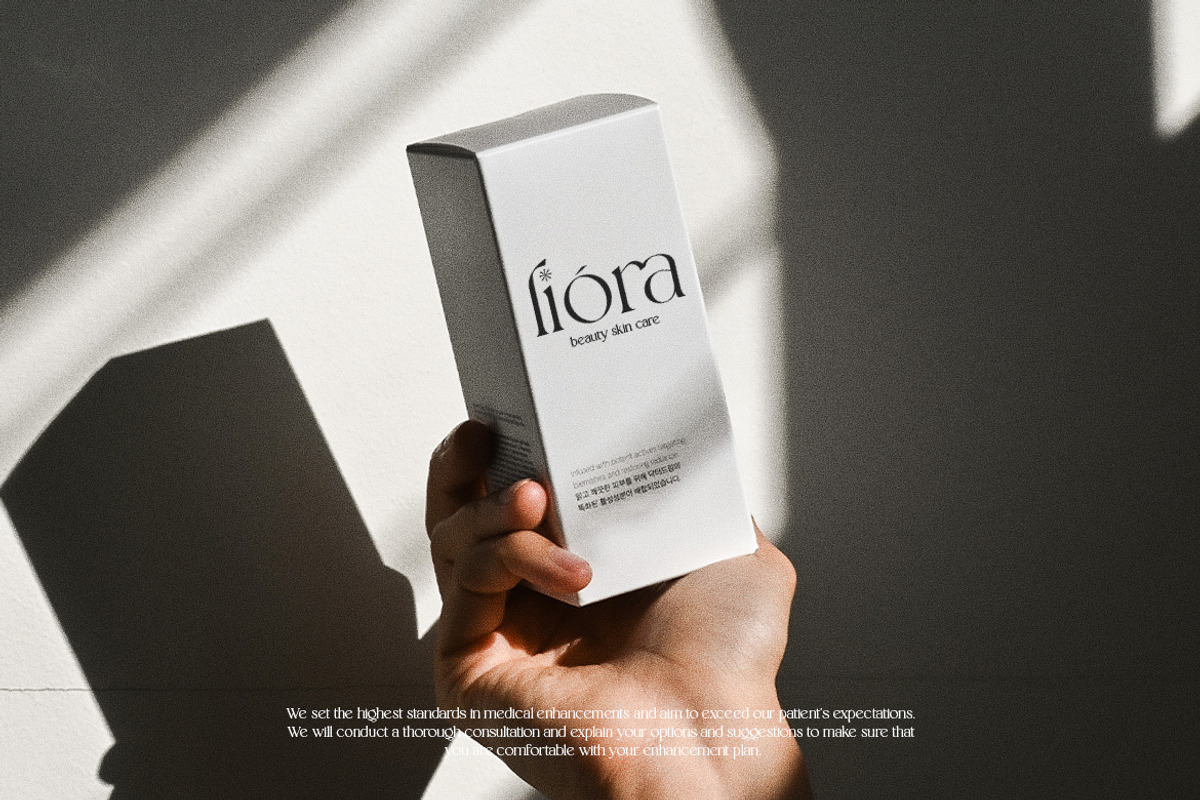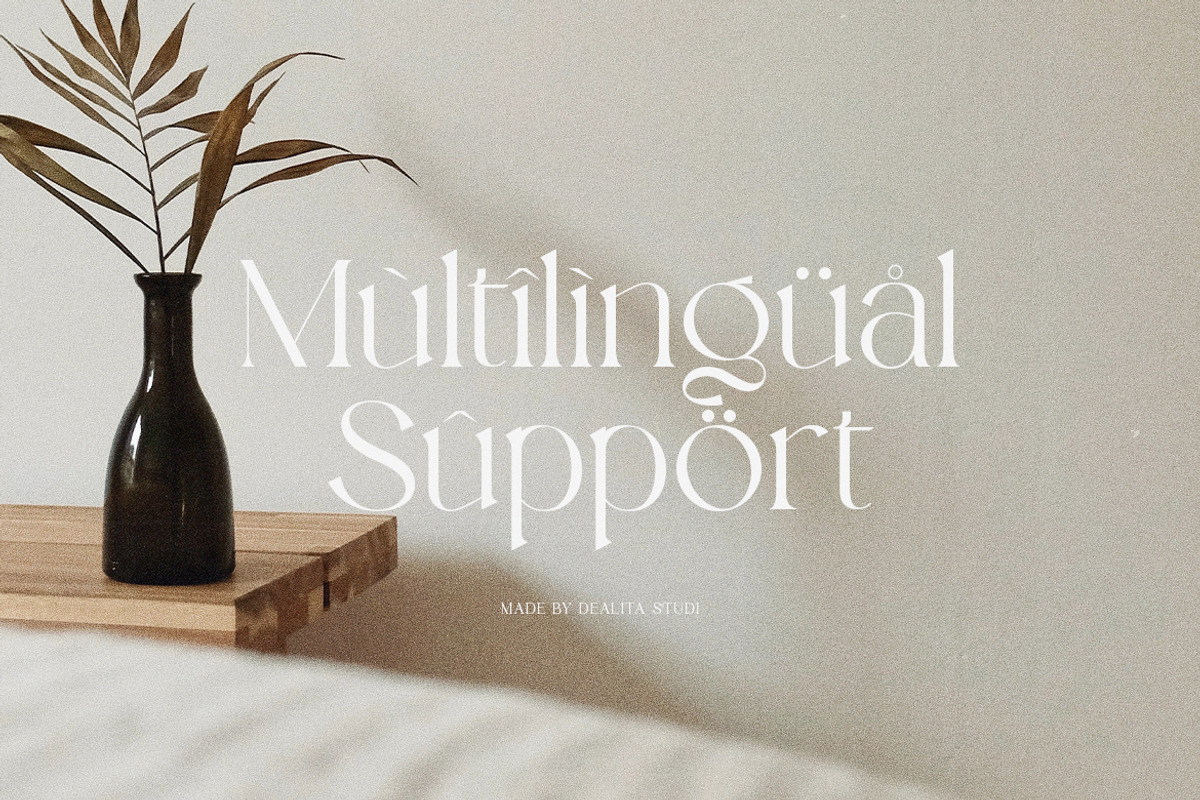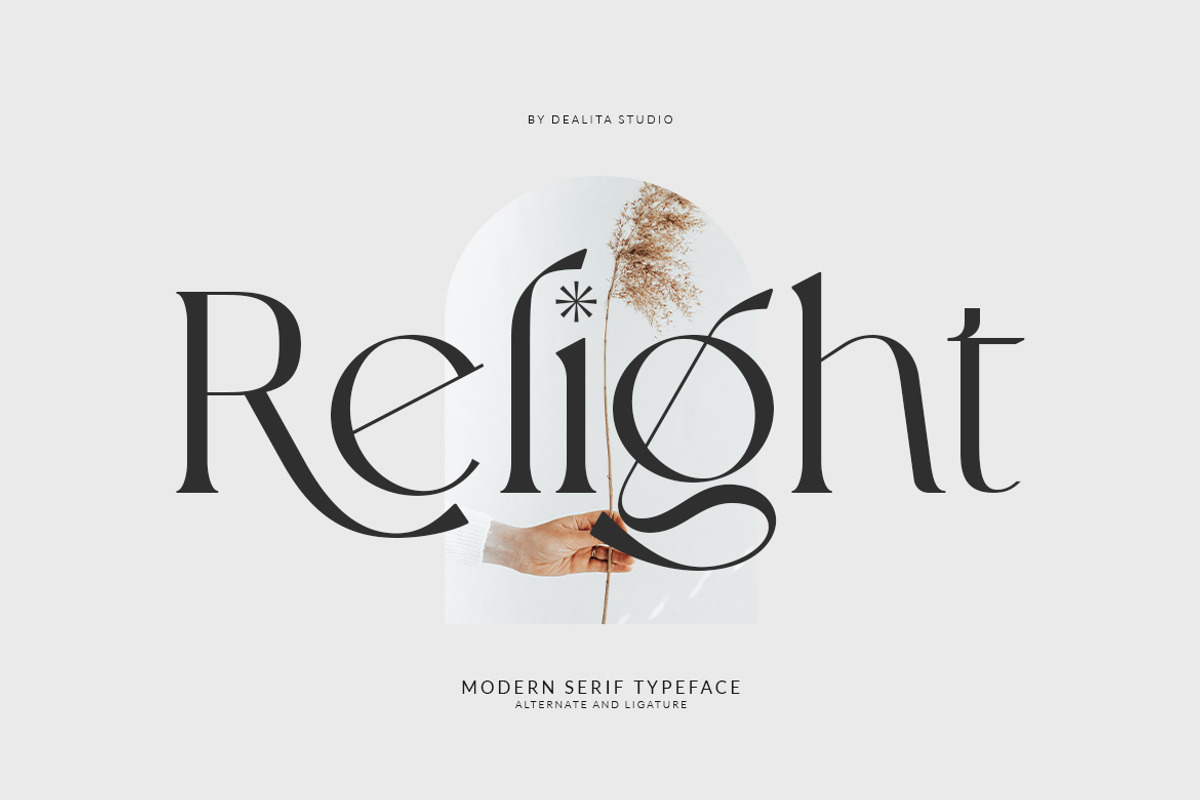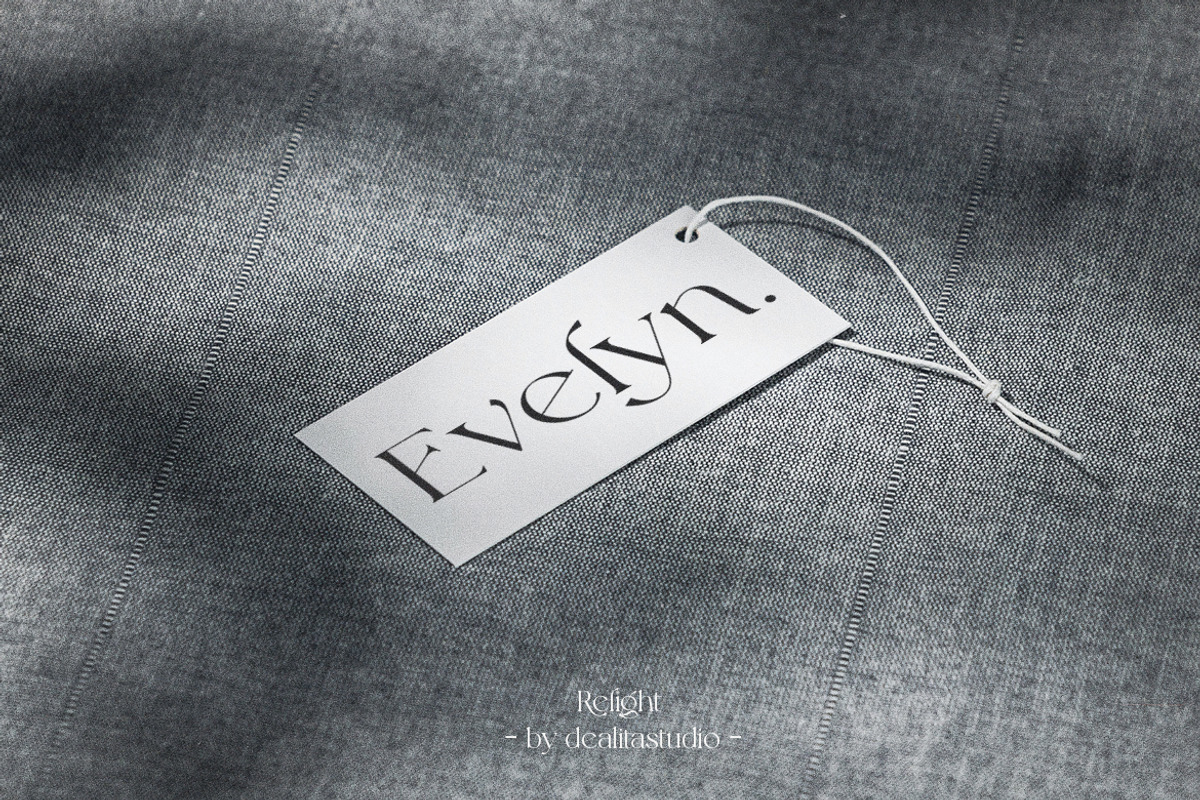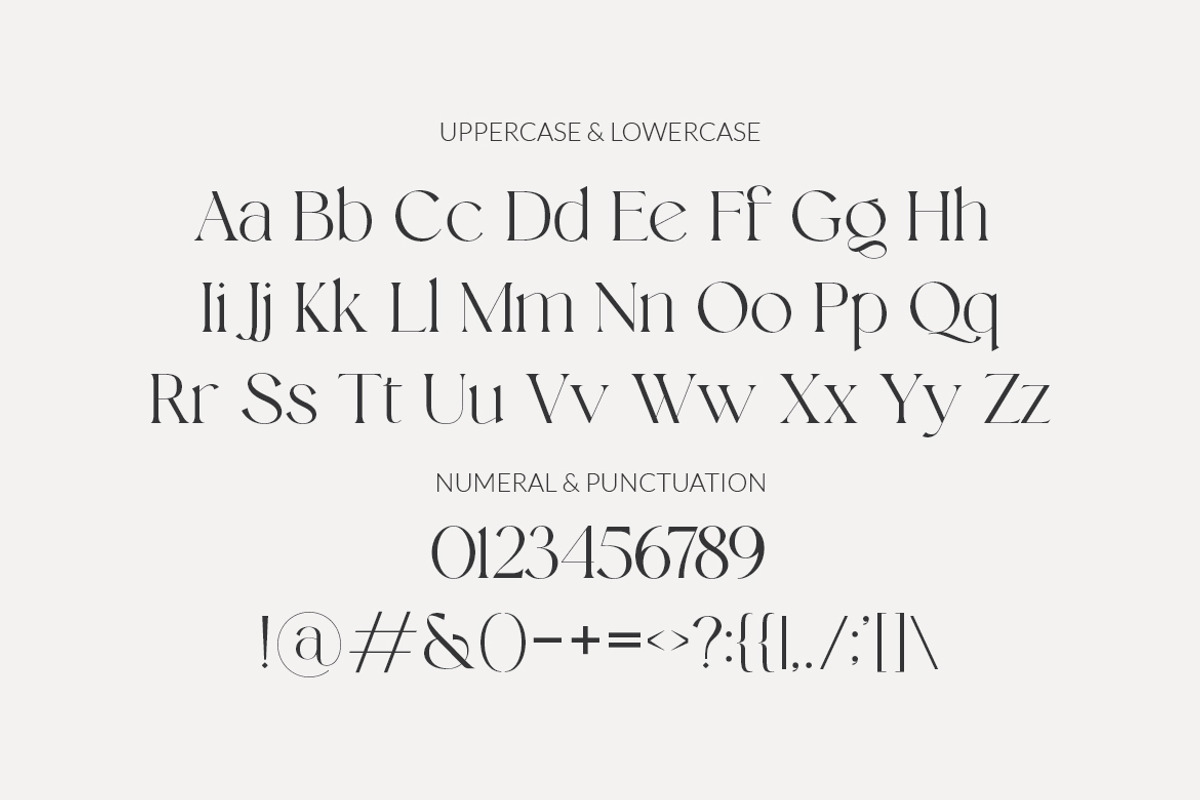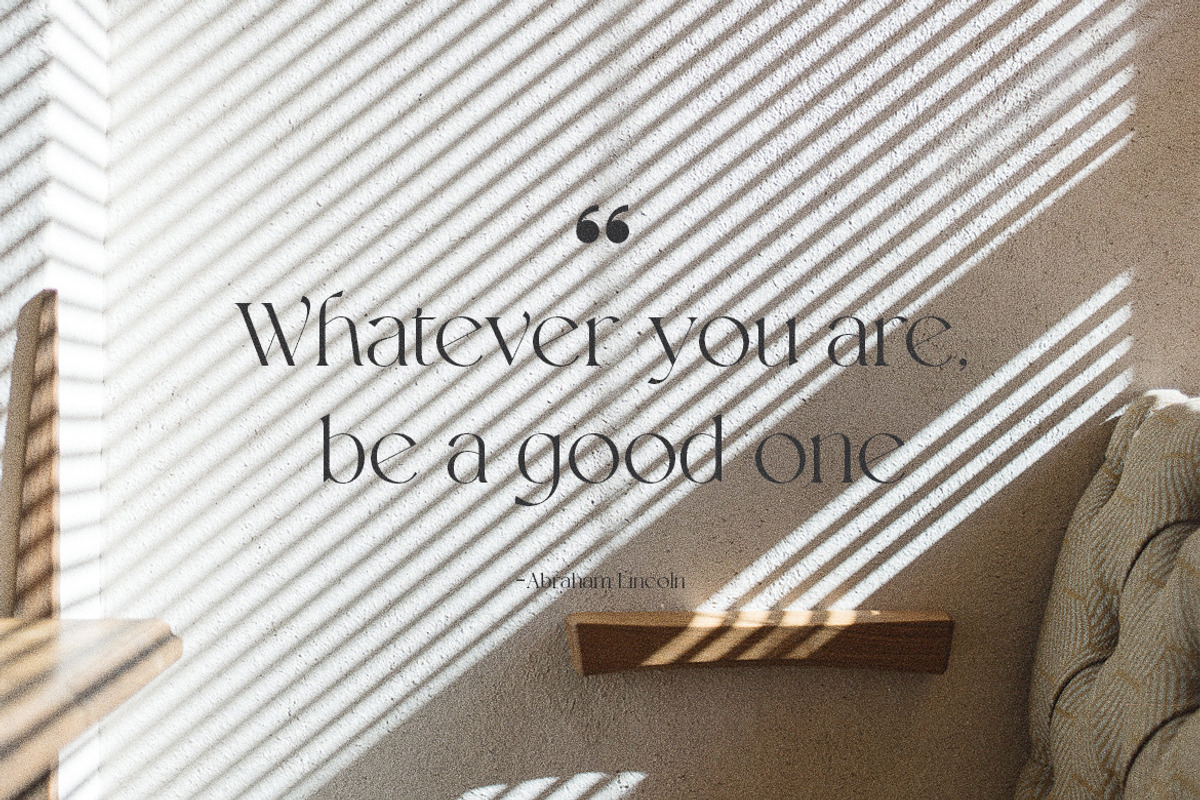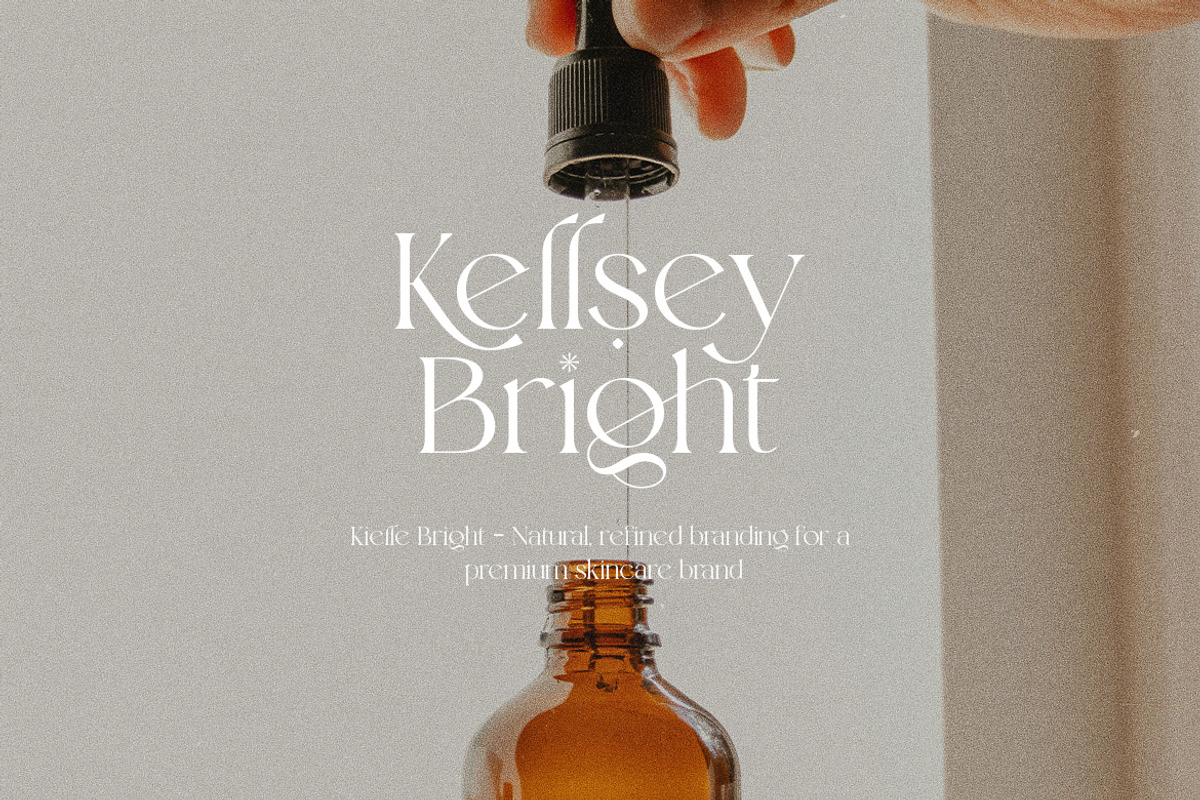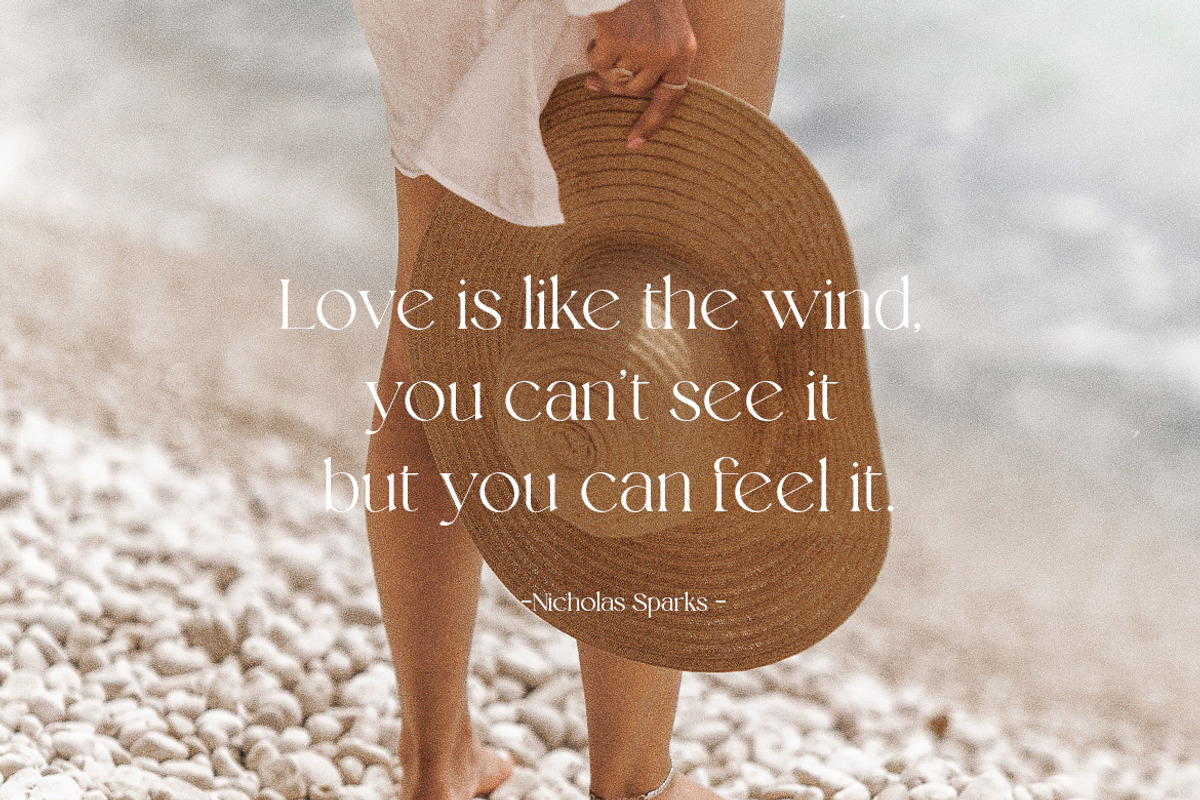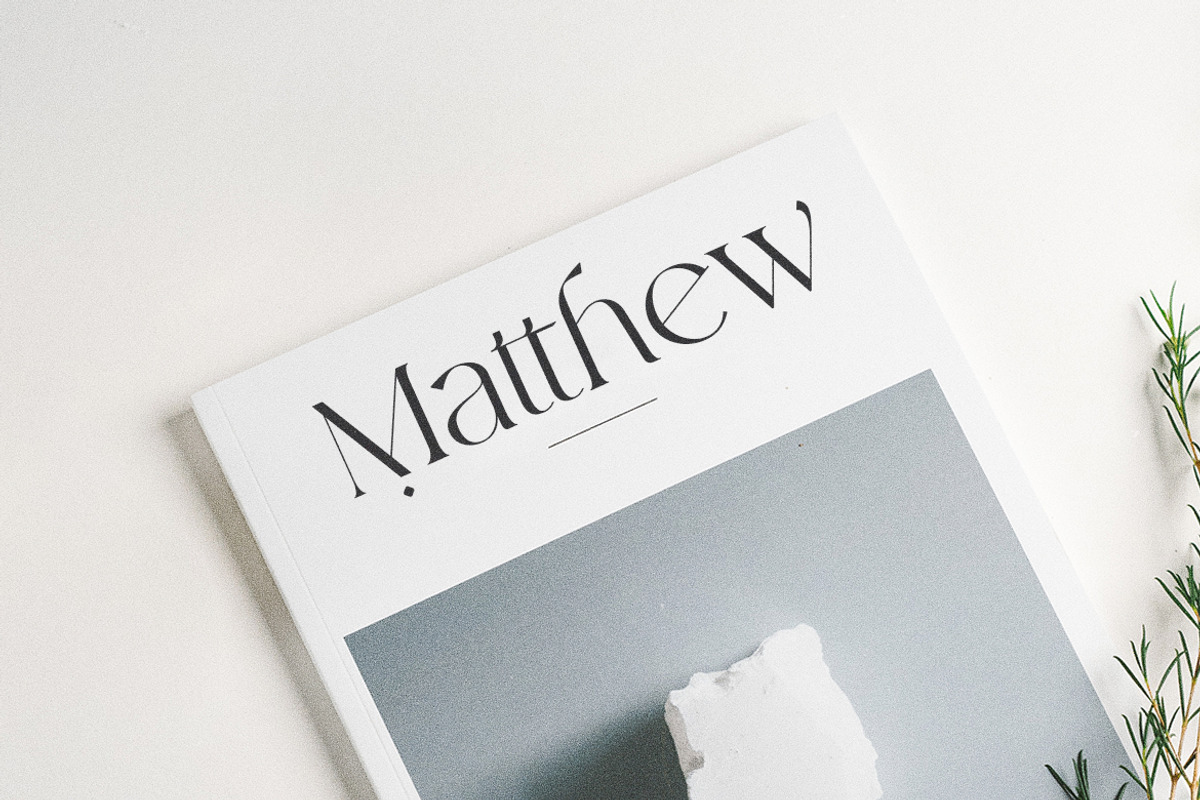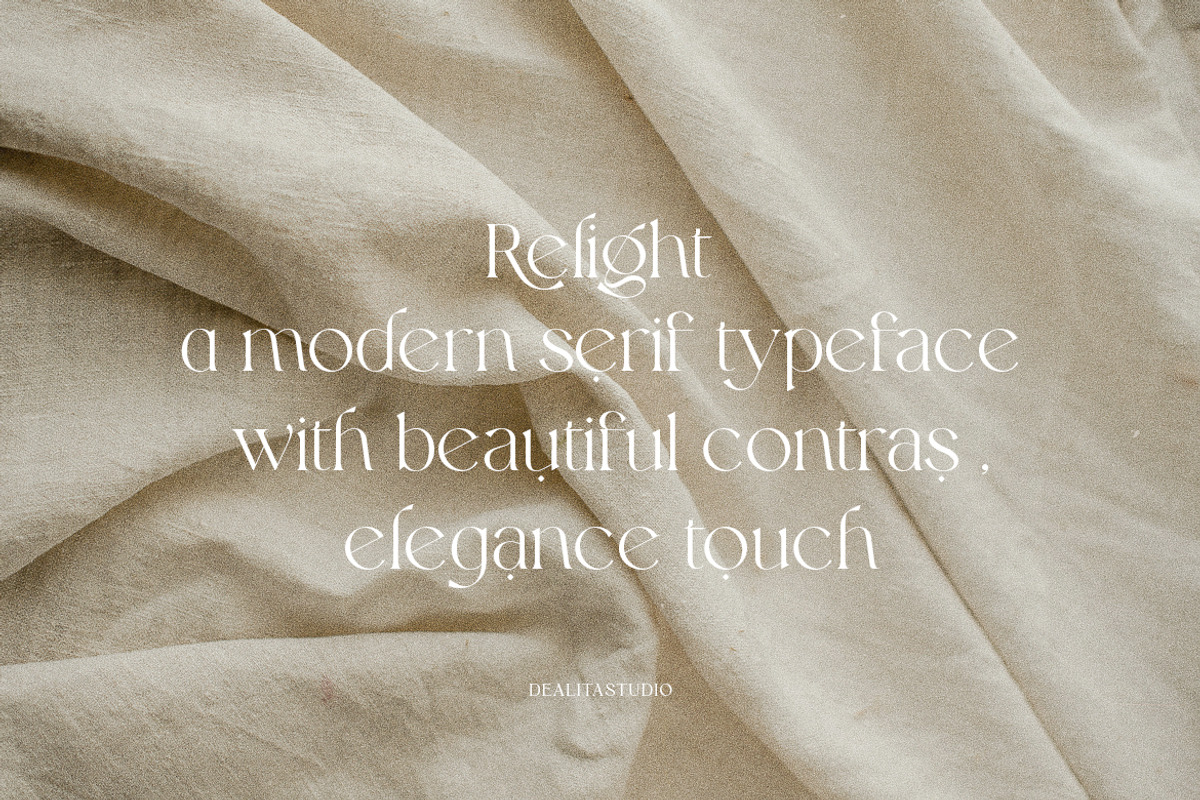
Relight - Modren Serif
Relight a chic & elegant display modern serif with beautiful contrast. Specially designed for fashion-themed projects, perfectly suitable for creating elegant, chic, lifestyle designs such as logos, titles, and magazines, and more.